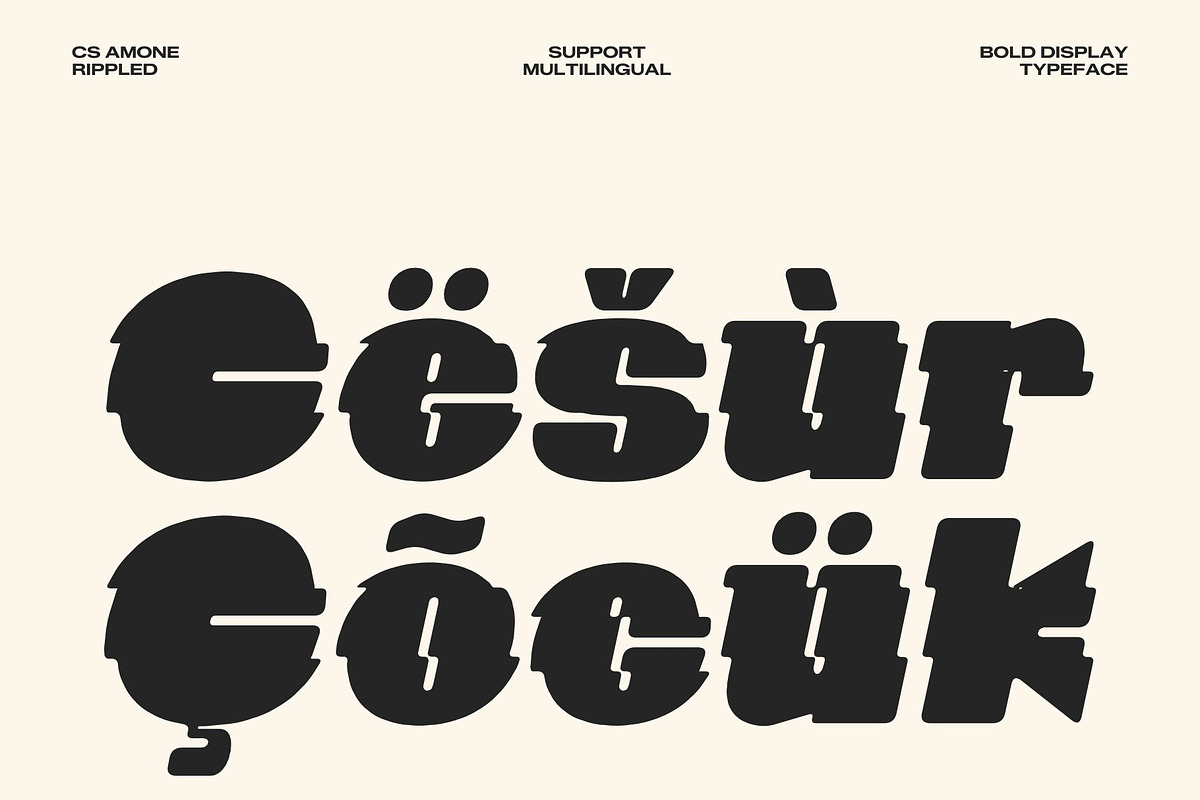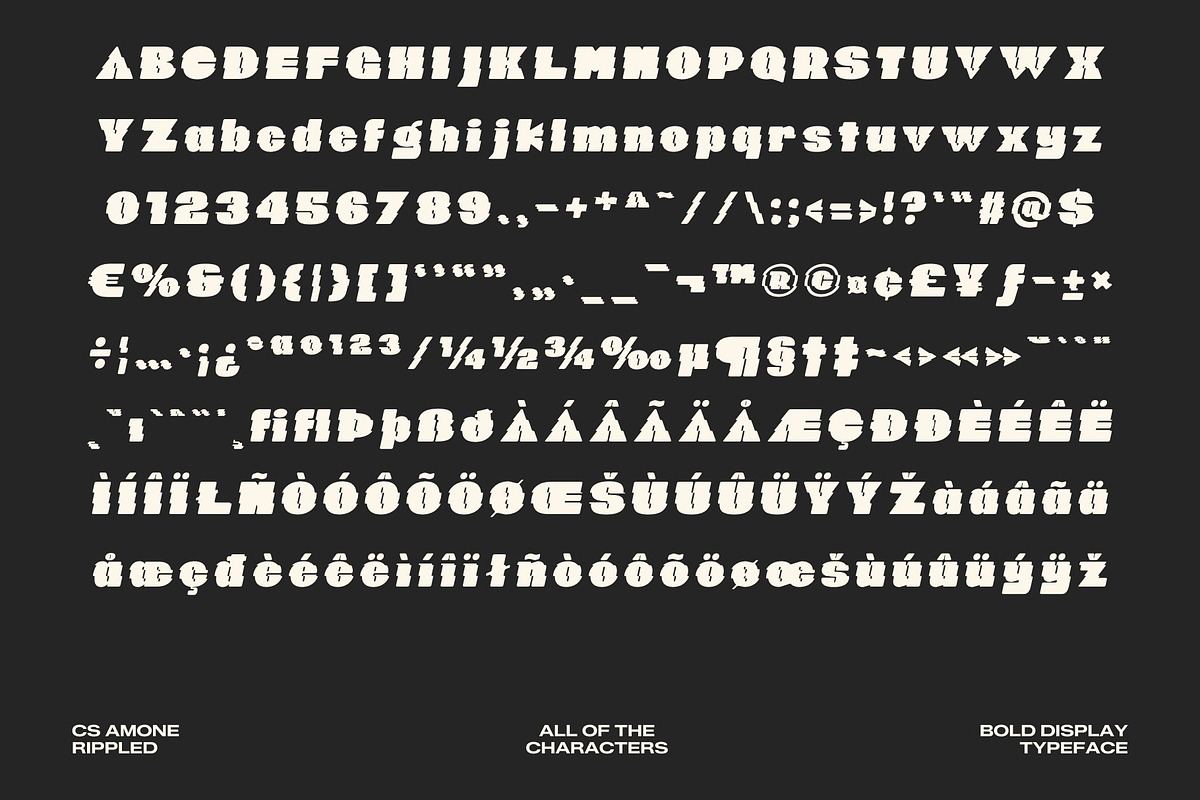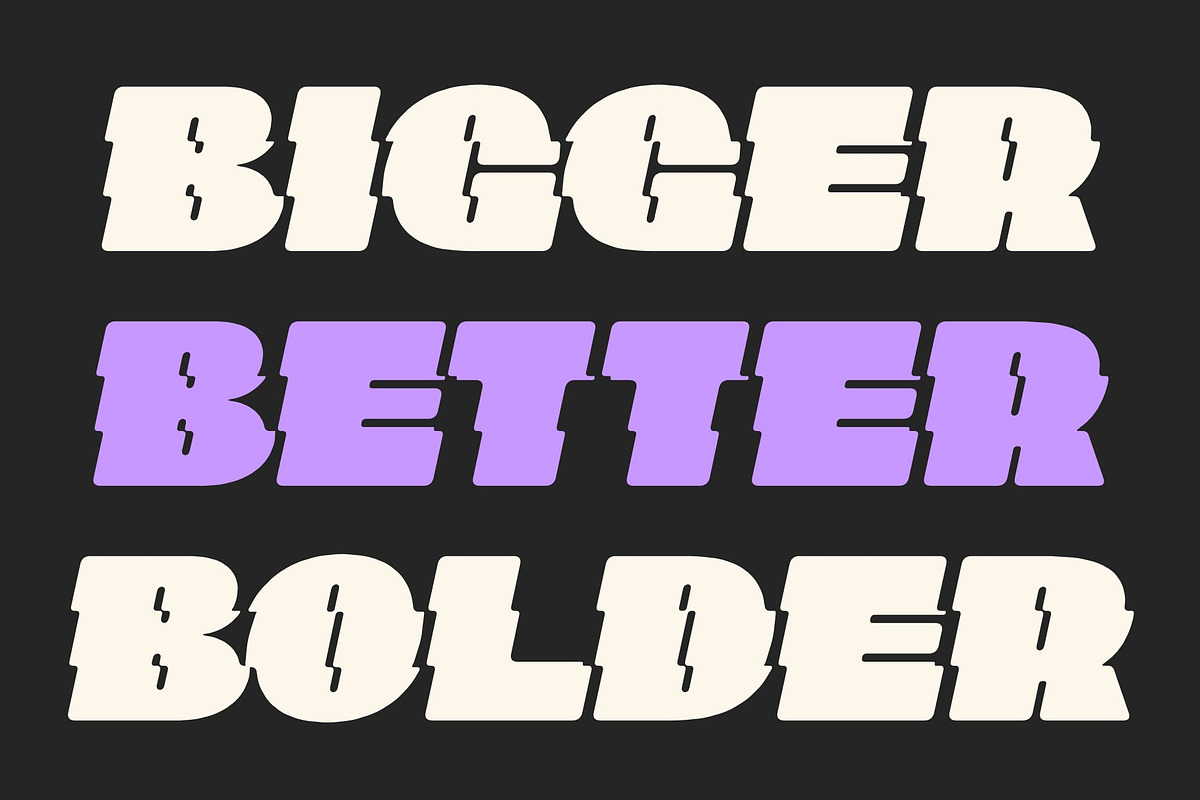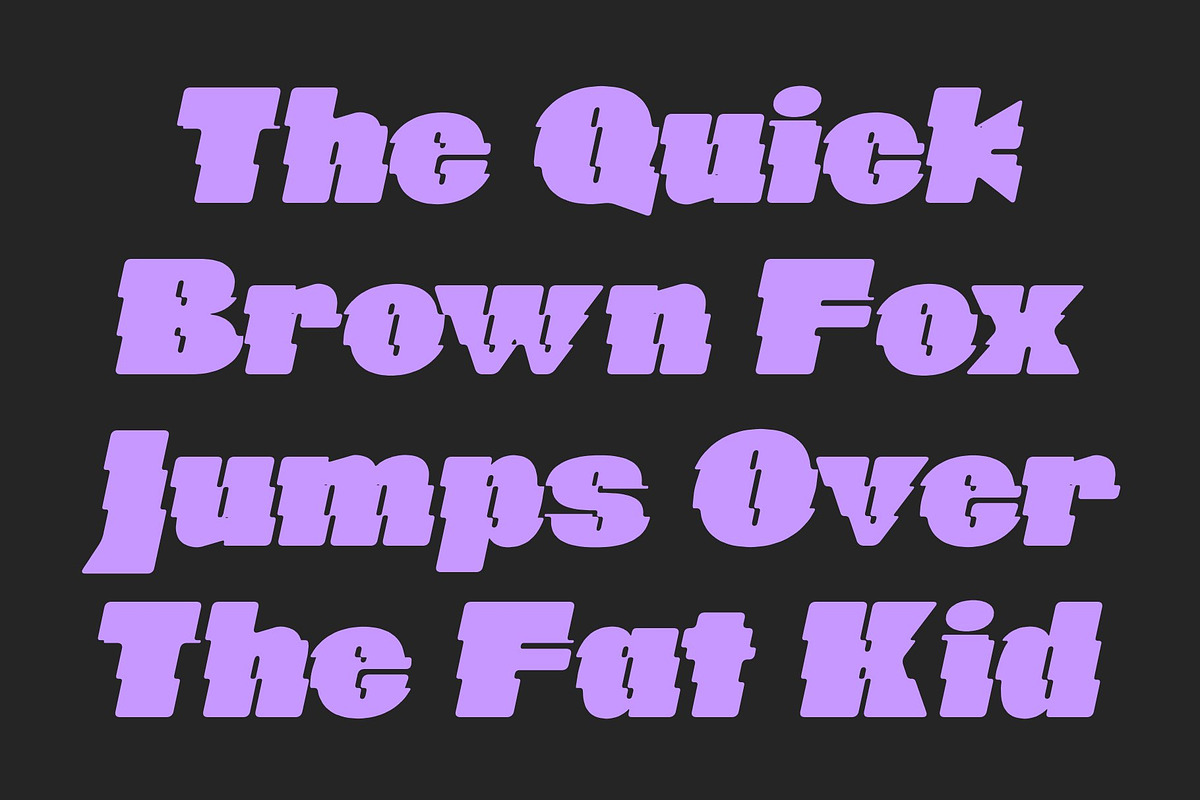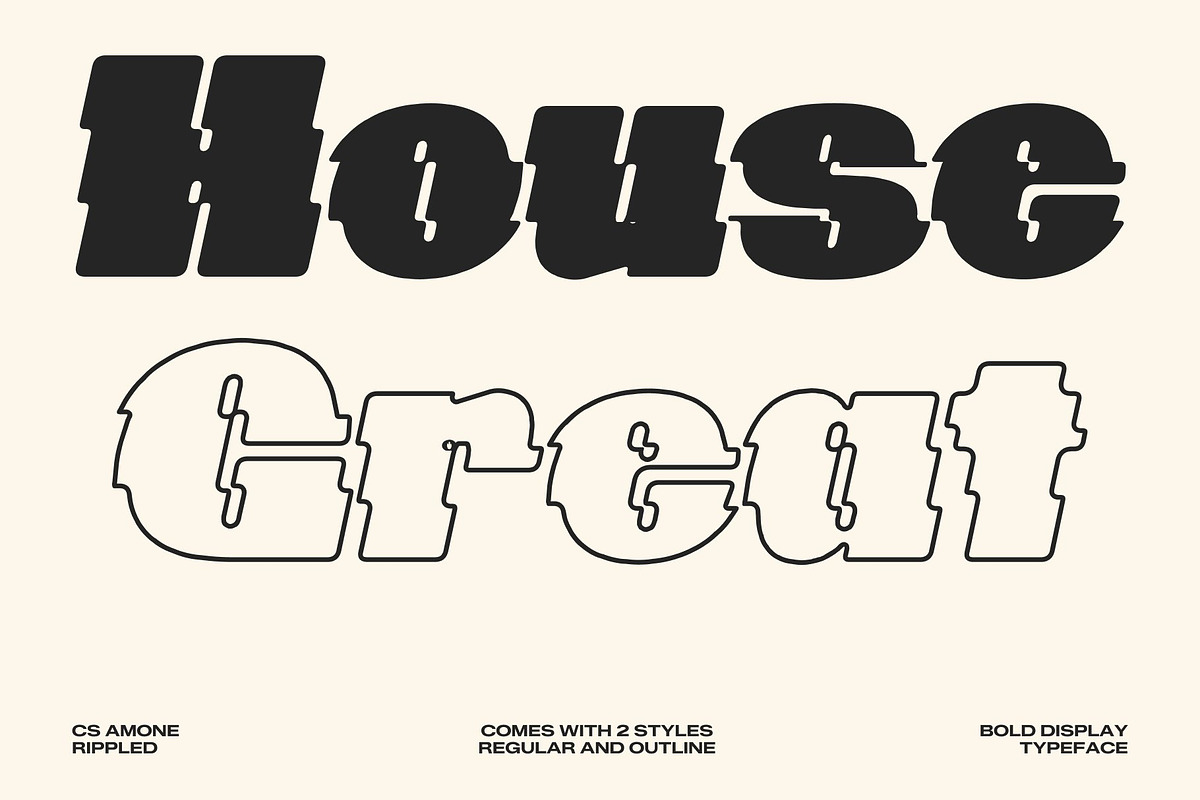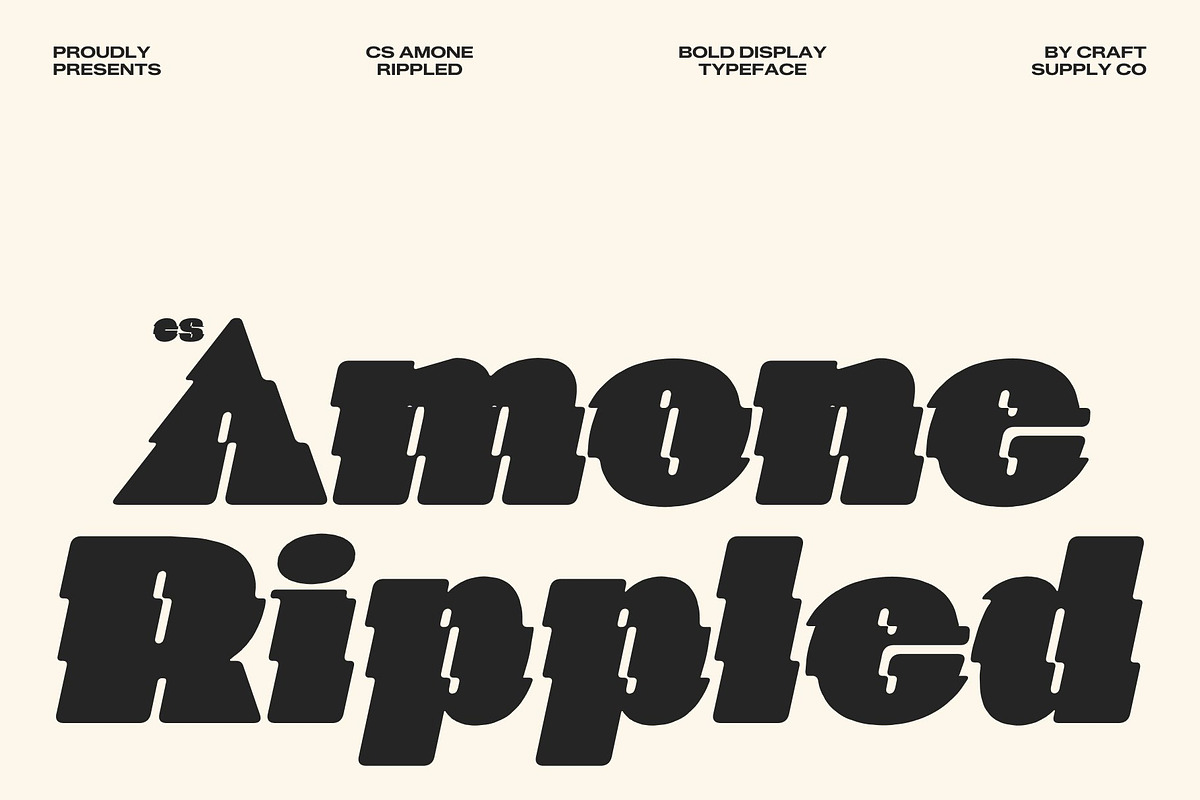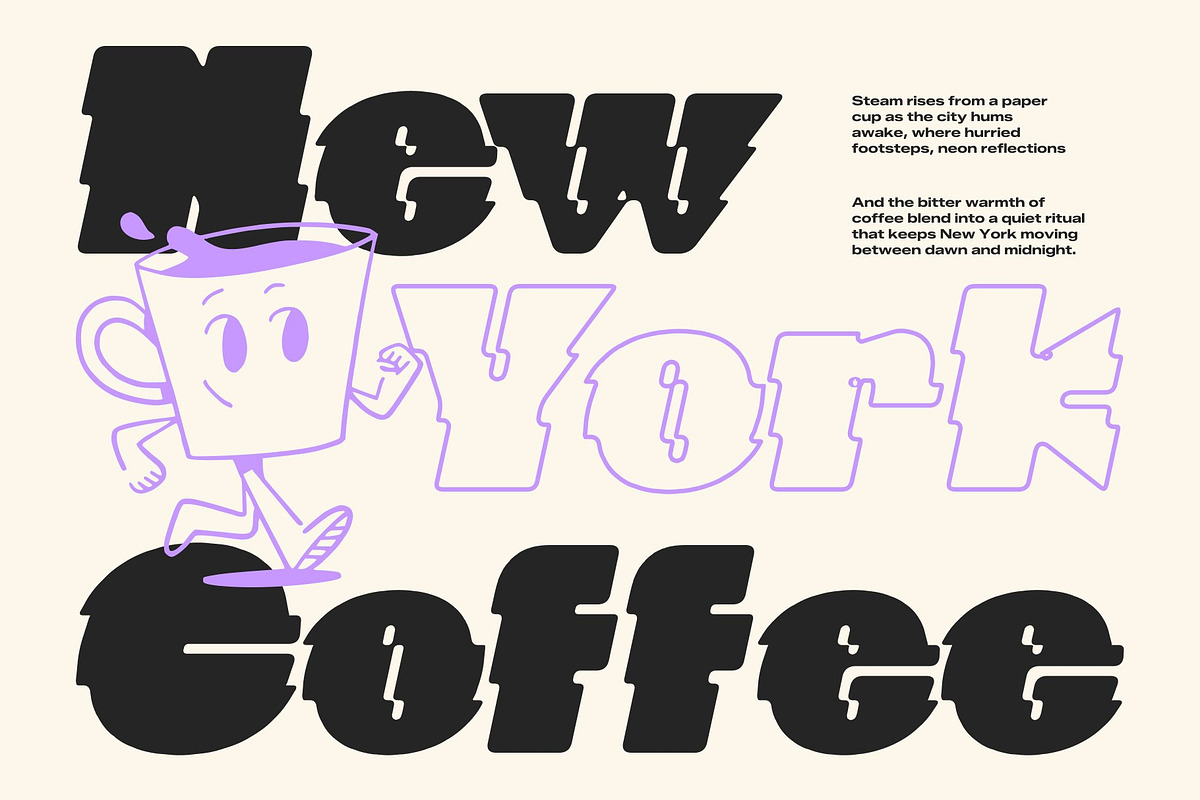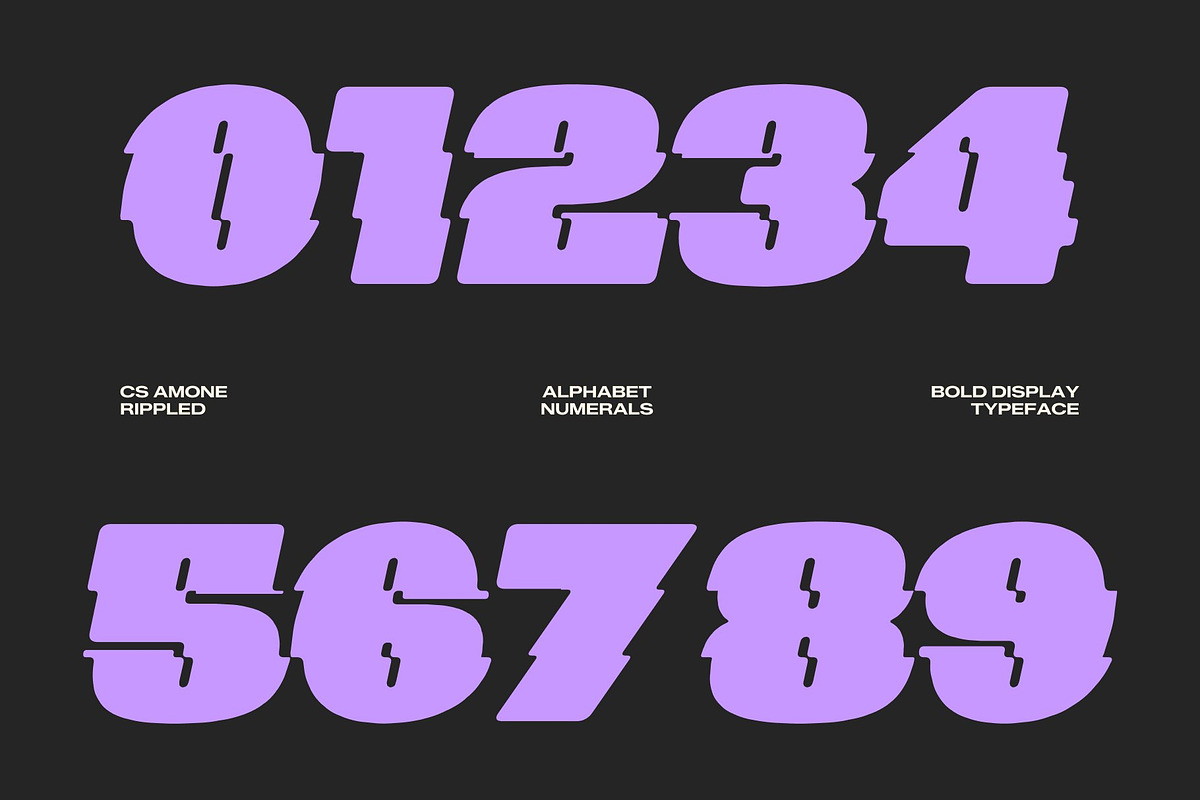
CS Amone Rippled
CS Amone Rippled – Bold Display Font with Liquid Strength and Authority
Bold Display Sans Serif Built for Impact This is a bold display sans serif font designed to project strength, confidence, and unmistakable presence. Its heavy strokes and commanding proportions create a powerful visual foundation that immediately captures attention. Every letter is engineered to feel intentional and assertive, transforming simple words into strong visual statements.
Strong Letterforms with Powerful Weight Each character is crafted with substantial thickness and balanced geometry, resulting in a typeface that feels stable, confident, and visually grounded. The bold silhouettes create a muscular typographic voice that maintains excellent readability even at large display sizes. Its strong structure ensures maximum visibility at a glance, making headlines and titles feel striking and memorable.
Designed to Command Attention This font thrives in projects where attention is non-negotiable. Perfect for posters, hero banners, advertisements, and large-scale headlines, the font naturally draws the eye and creates strong focal points. Its confident presence allows designers to build layouts that feel bold, decisive, and visually compelling.
Rippled Effect for Dynamic Visual Motion The signature rippled distortion introduces wave-like movement inspired by water reflections and fluid motion. This dynamic effect adds depth and modern energy while preserving the bold readability of the letterforms. It enhances branding, merchandise, promotional campaigns, and editorial visuals by giving typography a sense of movement and atmosphere.
CS Amone Rippled Regular
CS Amone Rippled Outline